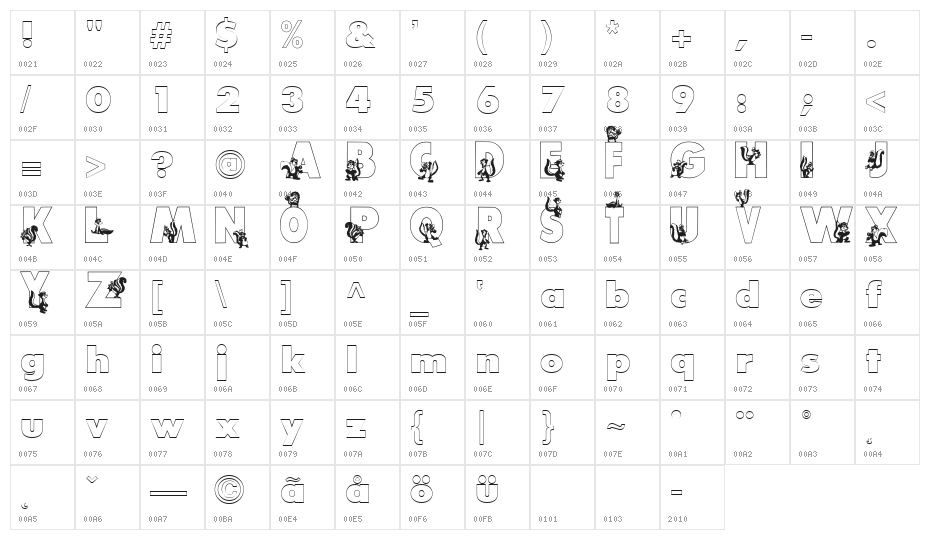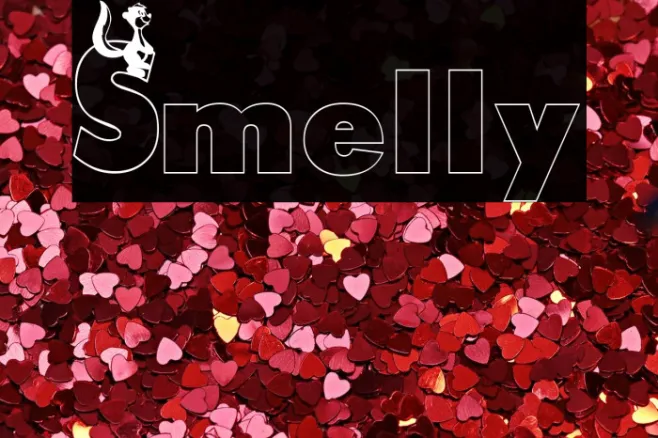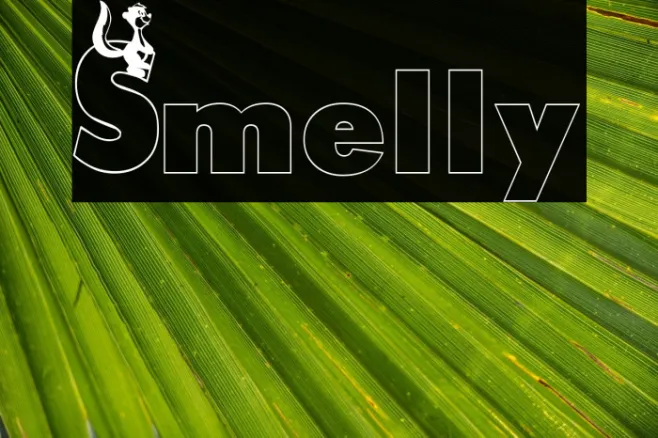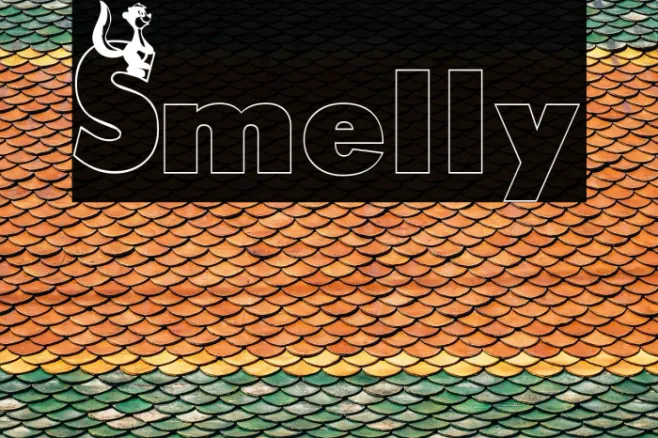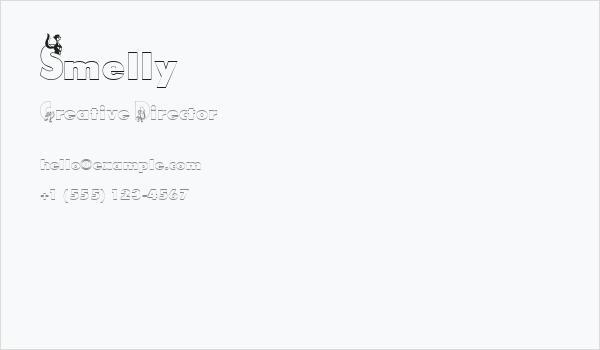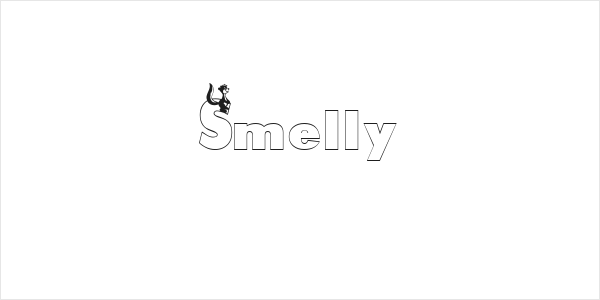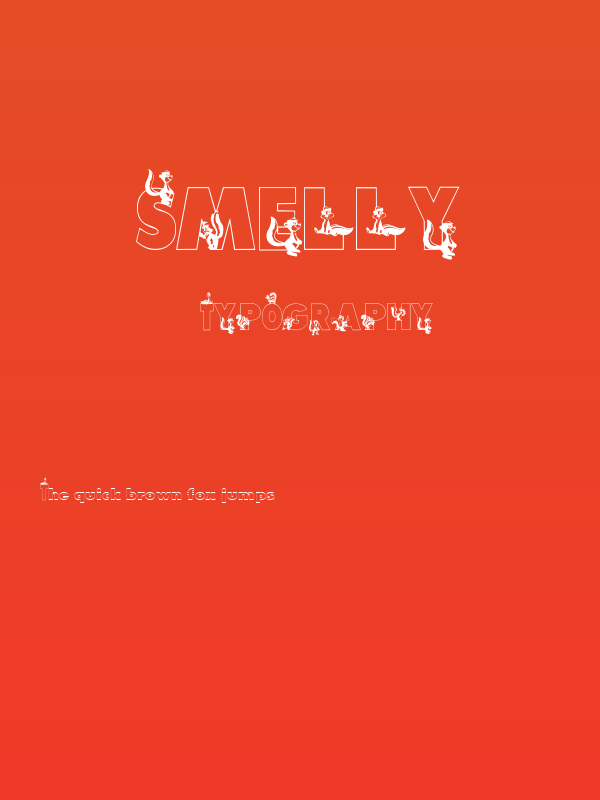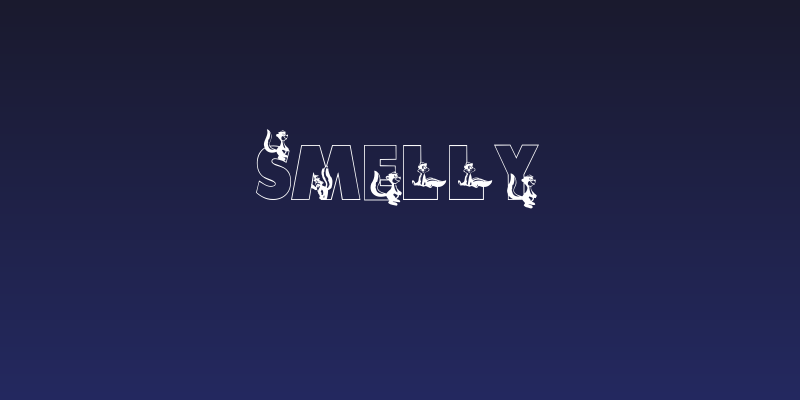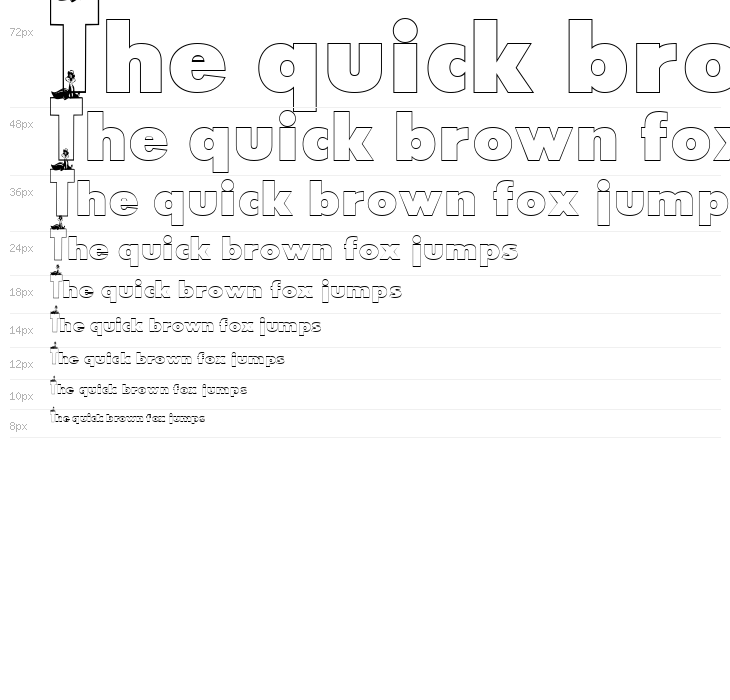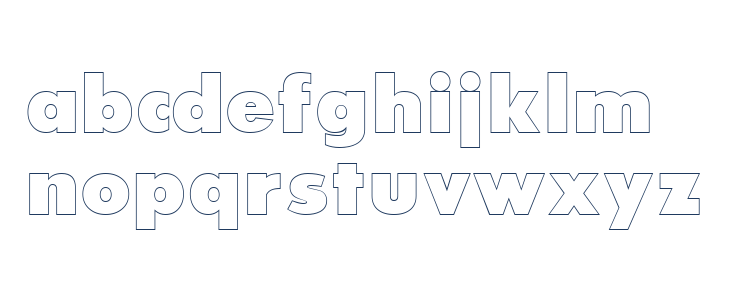
Smelly Font
Smelly Description
This playful and whimsical font features bold, uppercase letters adorned with charming skunk illustrations. The characters are outlined, giving them a distinct and lively appearance. The lowercase letters maintain a clean and simple design, contrasting with the decorative uppercase. Numbers and special characters are included, following the same bold and outlined style. The font's unique character is perfect for projects that require a fun and eye-catching element.
| Proposed Projects | Ideal for children's books, playful branding, themed party invitations, or any project needing a whimsical touch. |